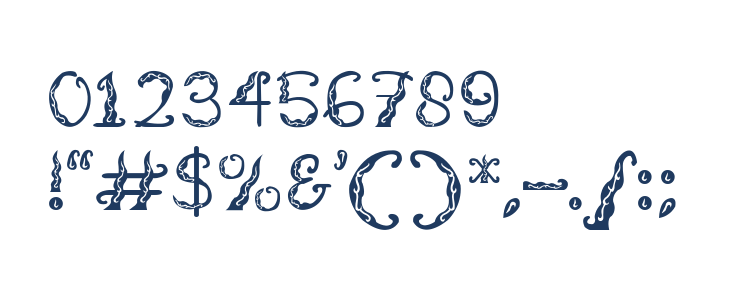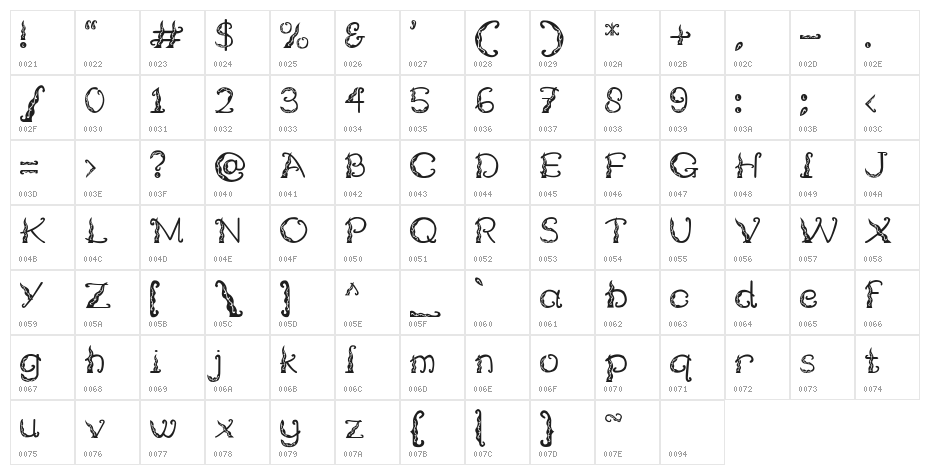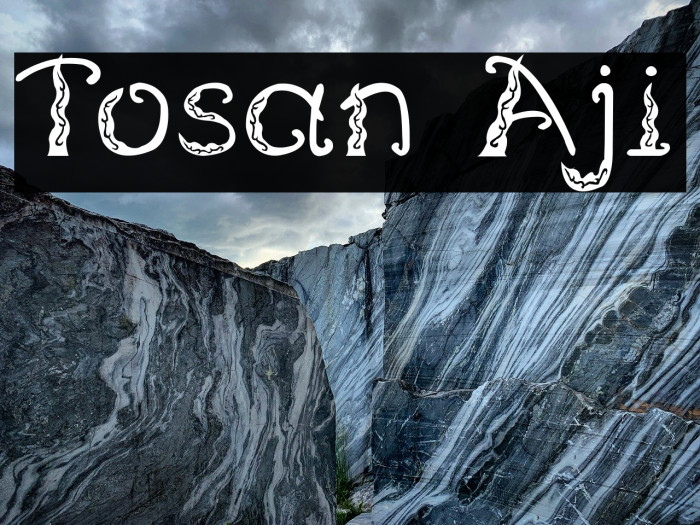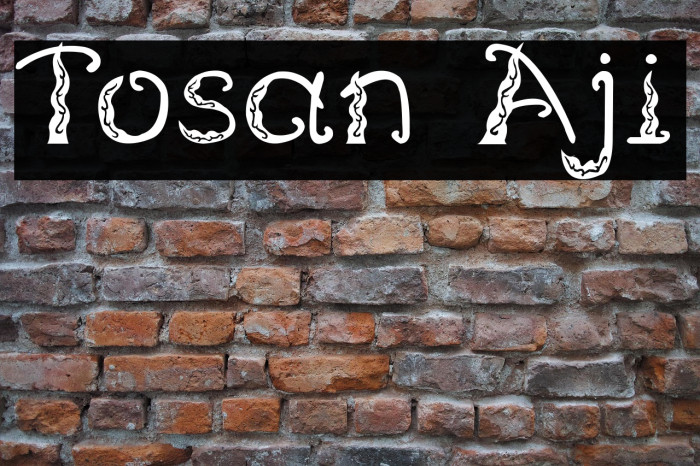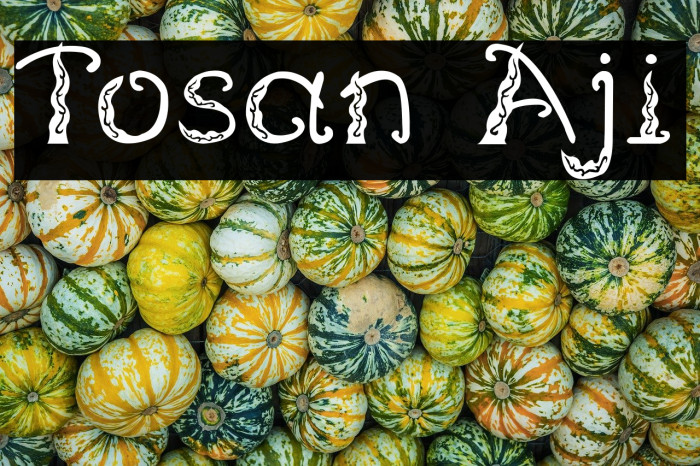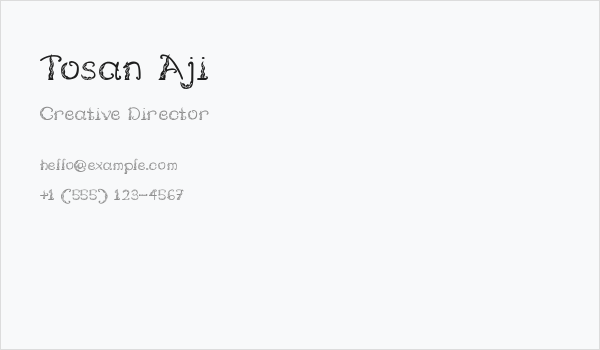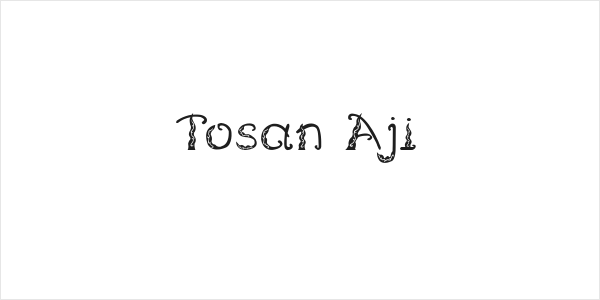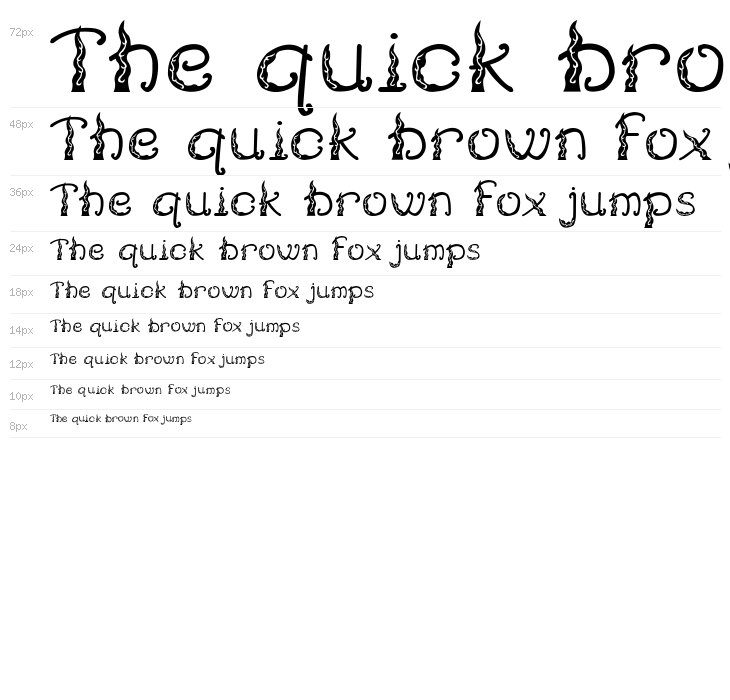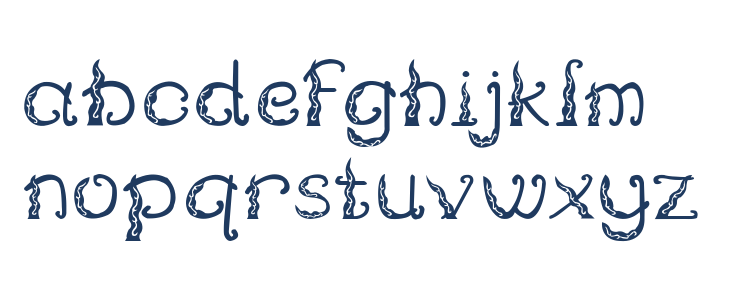
Tosan Aji Font
Tosan Aji Description
This font features a unique and artistic design, characterized by intricate, flame-like patterns integrated into each character. The letters exhibit a decorative style, with swirling elements that give them a dynamic and fiery appearance. The uppercase and lowercase letters maintain a consistent theme, while the numbers and special characters also incorporate these ornate details. The overall look is bold and eye-catching, making it suitable for projects that require a dramatic and expressive typeface.
| Proposed Projects | Ideal for use in fantasy-themed designs, event posters, book covers, or any project that requires a striking and artistic typeface. |